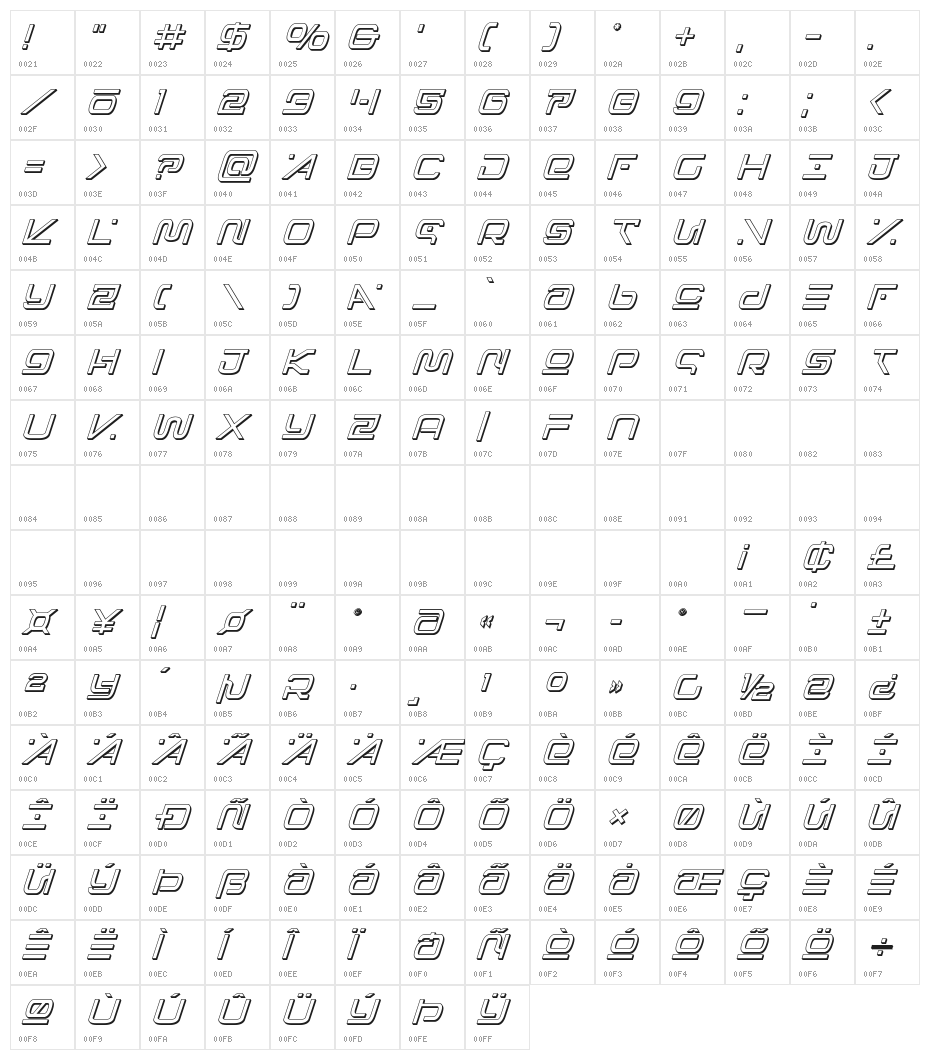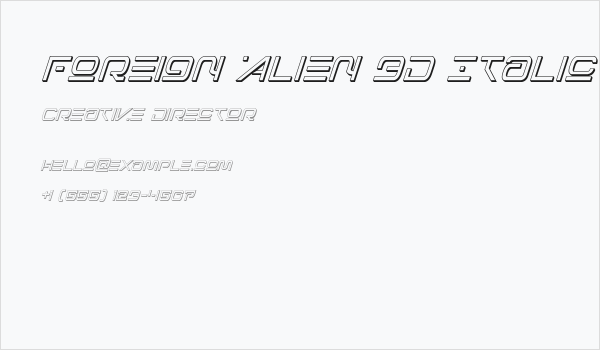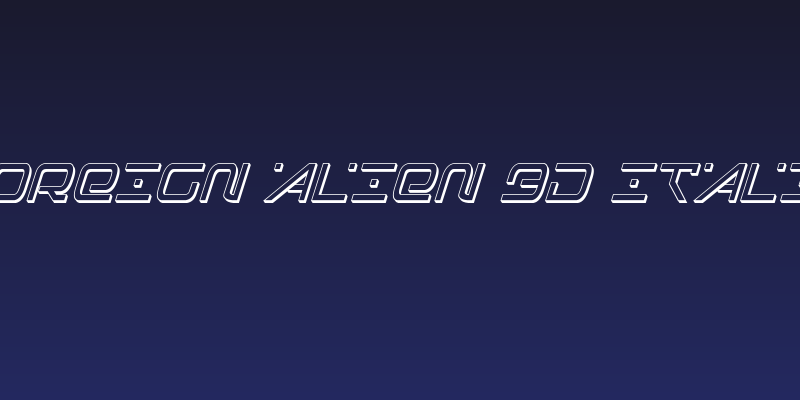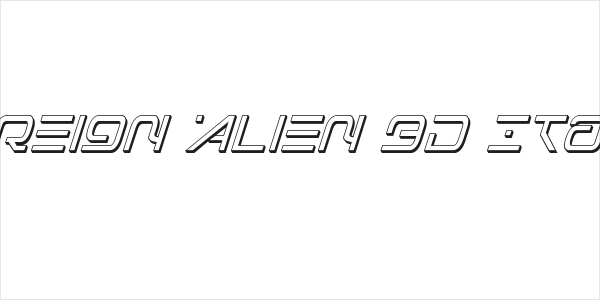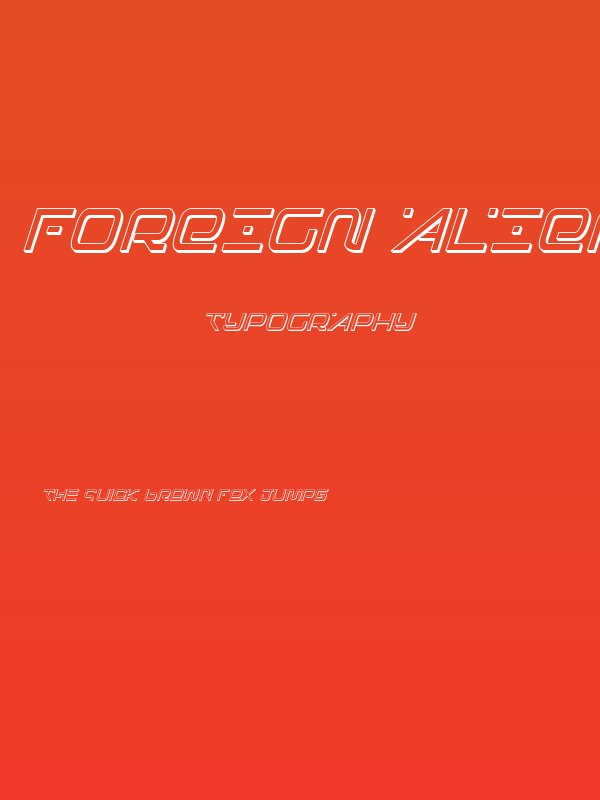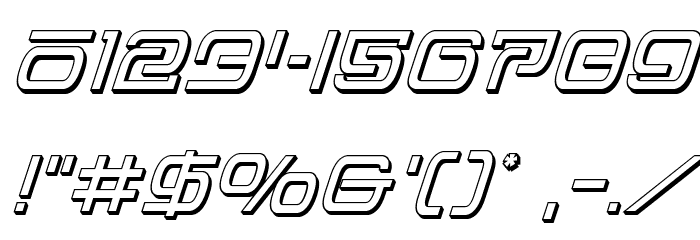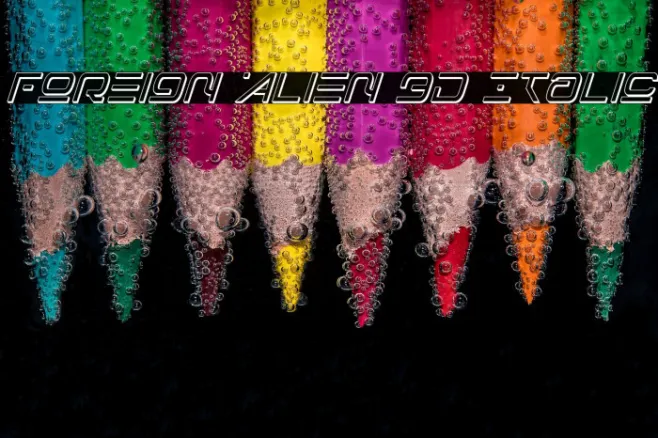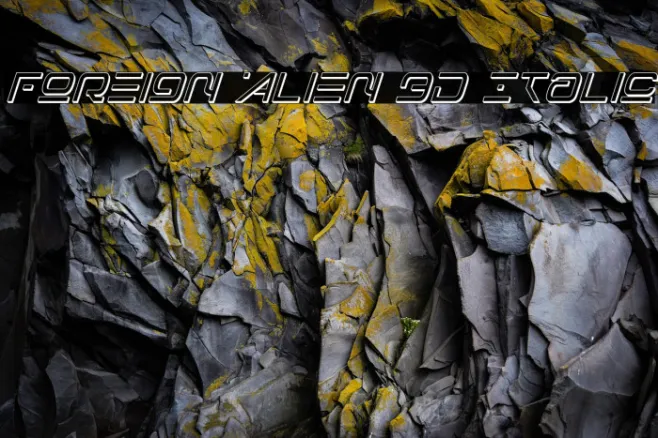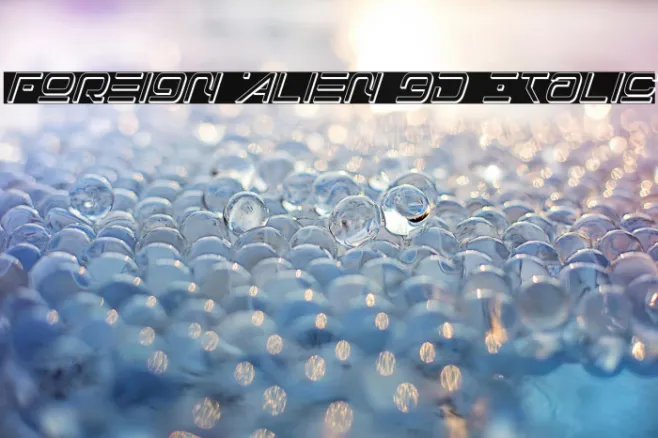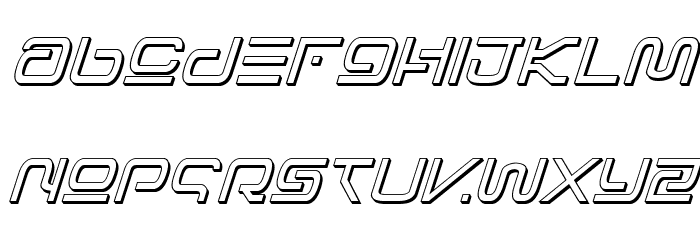
Foreign Alien 3D Italic Font
Foreign Alien 3D Italic Description
This font features a futuristic and geometric design, characterized by its 3D appearance and italicized style. The letters are outlined, giving a hollow effect that enhances the three-dimensional look. The angular and sharp edges contribute to a modern, tech-inspired aesthetic. Each character is distinct, with unique cuts and slants that add to the alien-like feel. The font maintains a consistent line weight, ensuring readability while still appearing dynamic and engaging. Its bold presence makes it suitable for eye-catching designs.